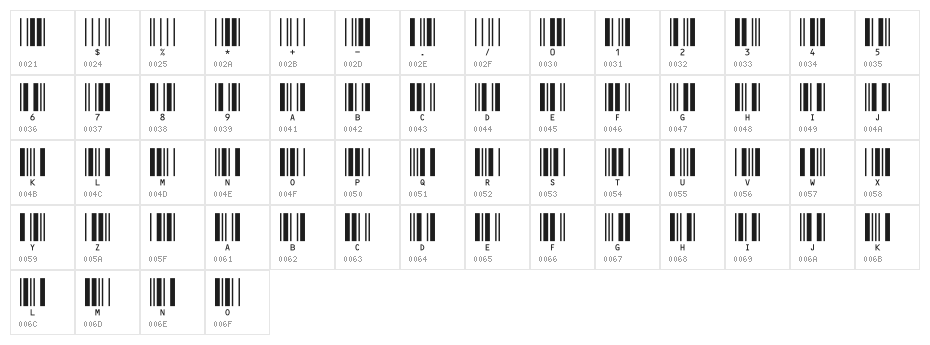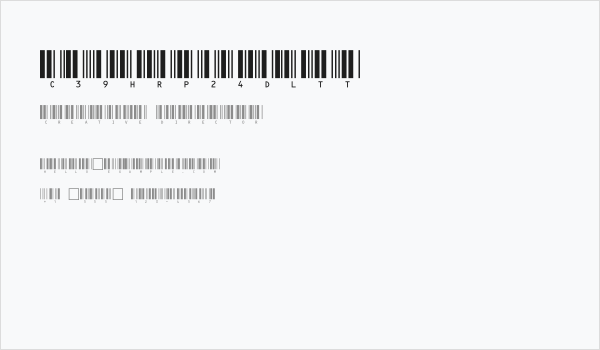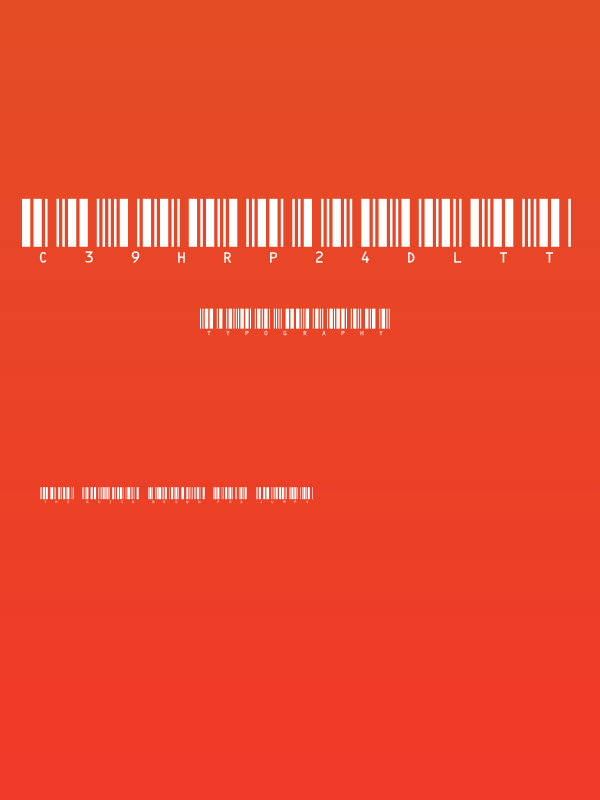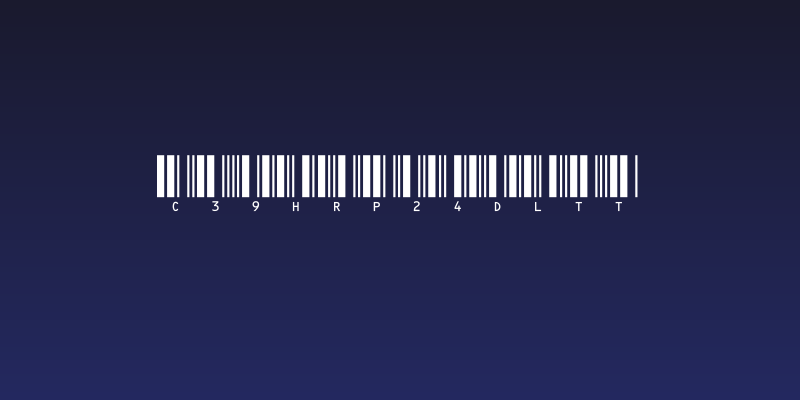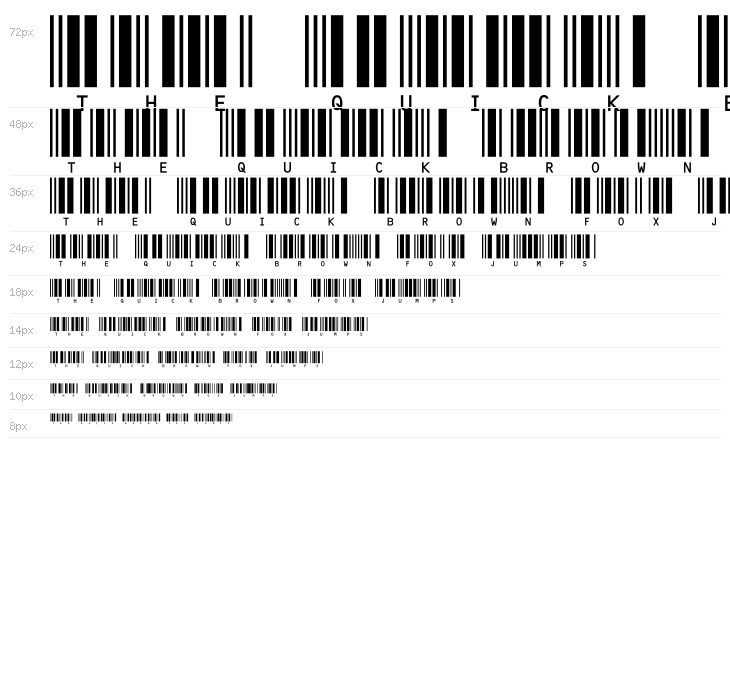
C39HrP24DlTt Font
C39HrP24DlTt Description
This is a barcode font designed to represent alphanumeric characters and some special symbols in a machine-readable format. Each character is depicted as a series of parallel lines of varying widths and spacing, which can be scanned by barcode readers. The font is structured to ensure accuracy and readability, making it suitable for inventory management, retail, and logistics. The characters are uniformly spaced, providing a consistent and clean appearance. This font is essential for applications requiring quick and efficient data capture.